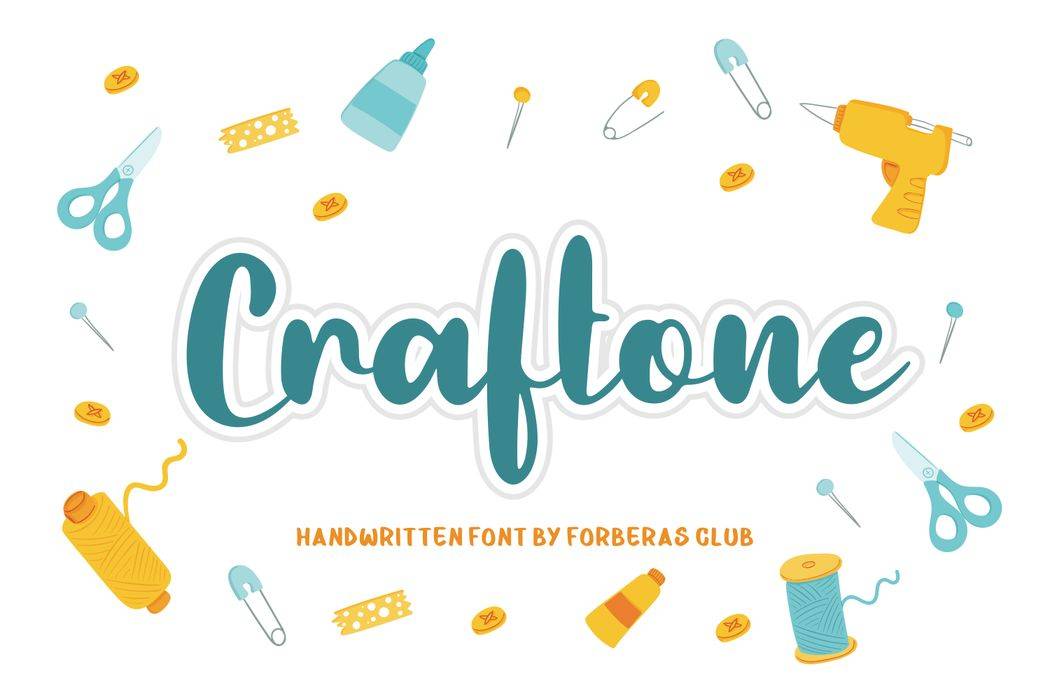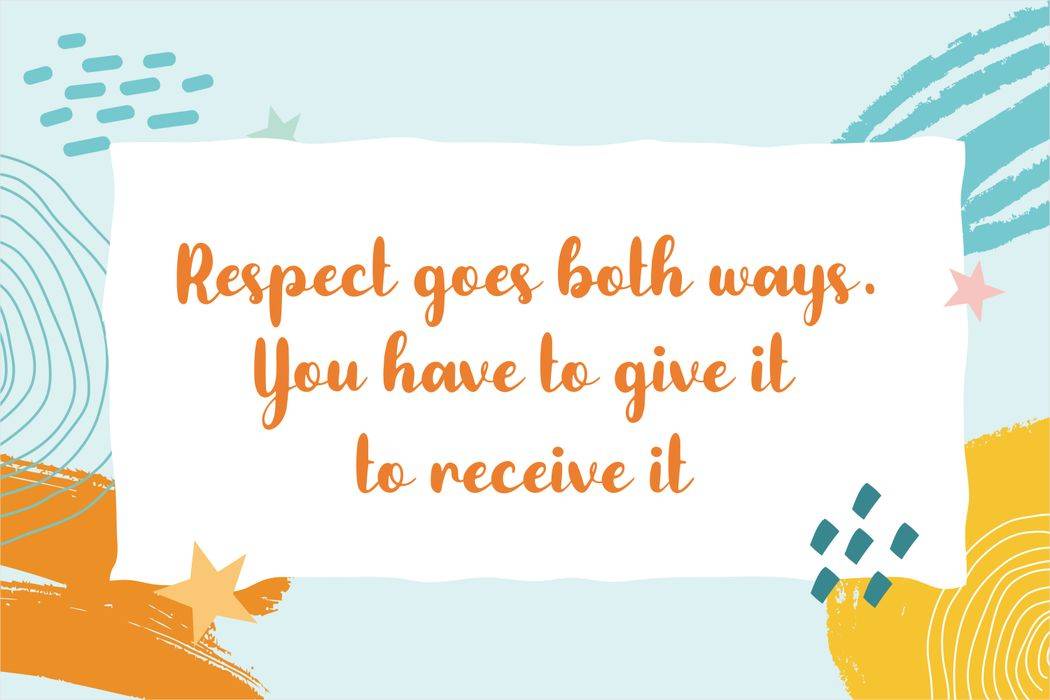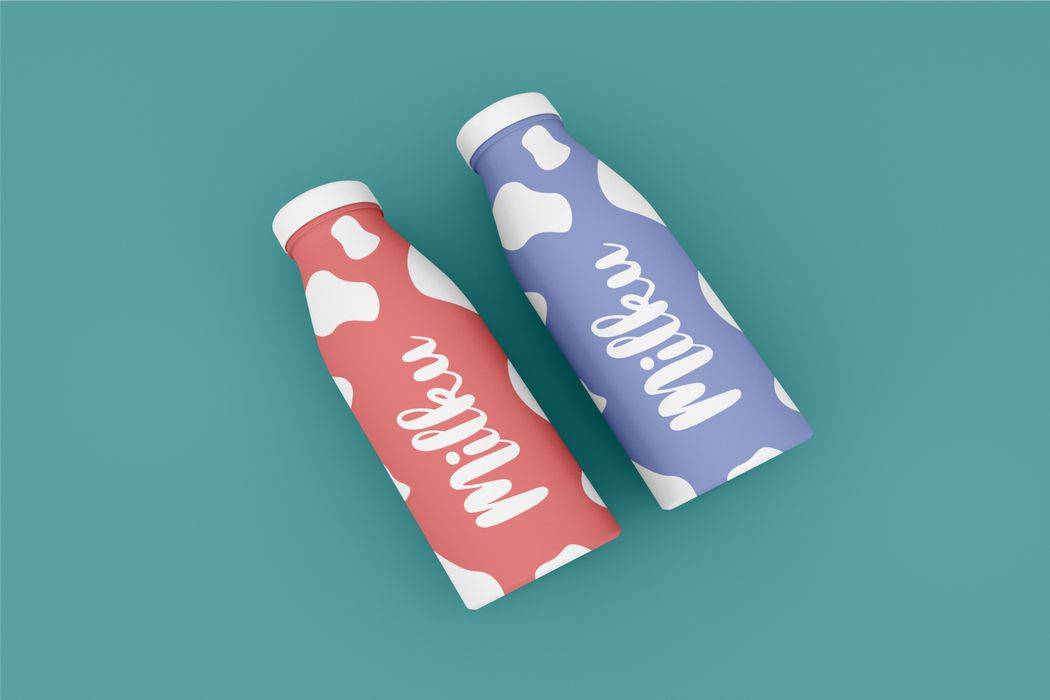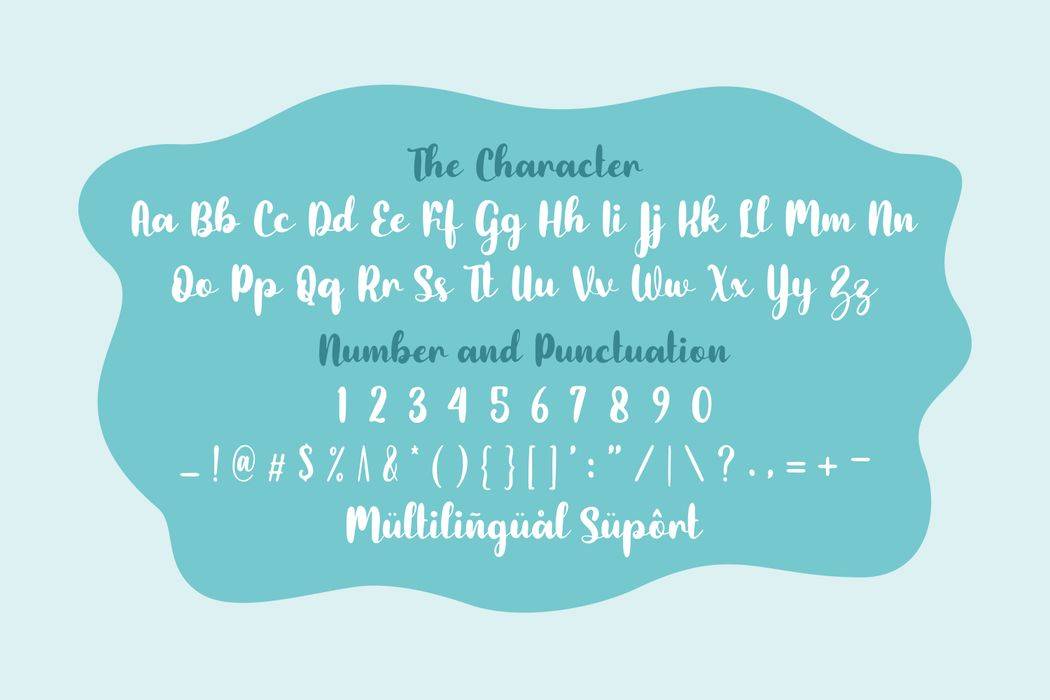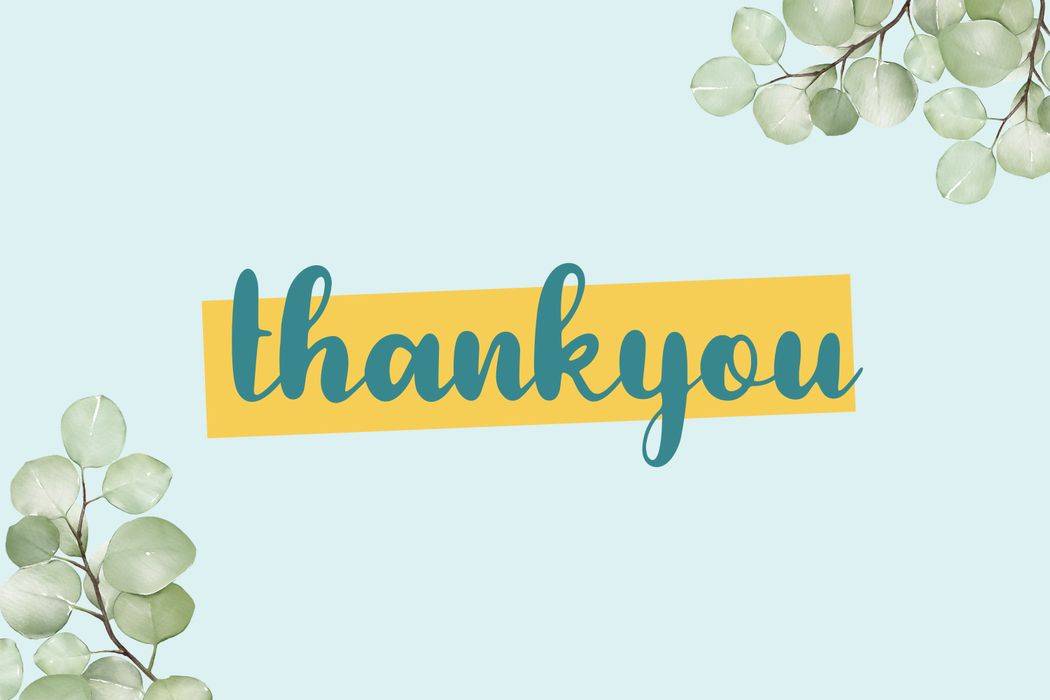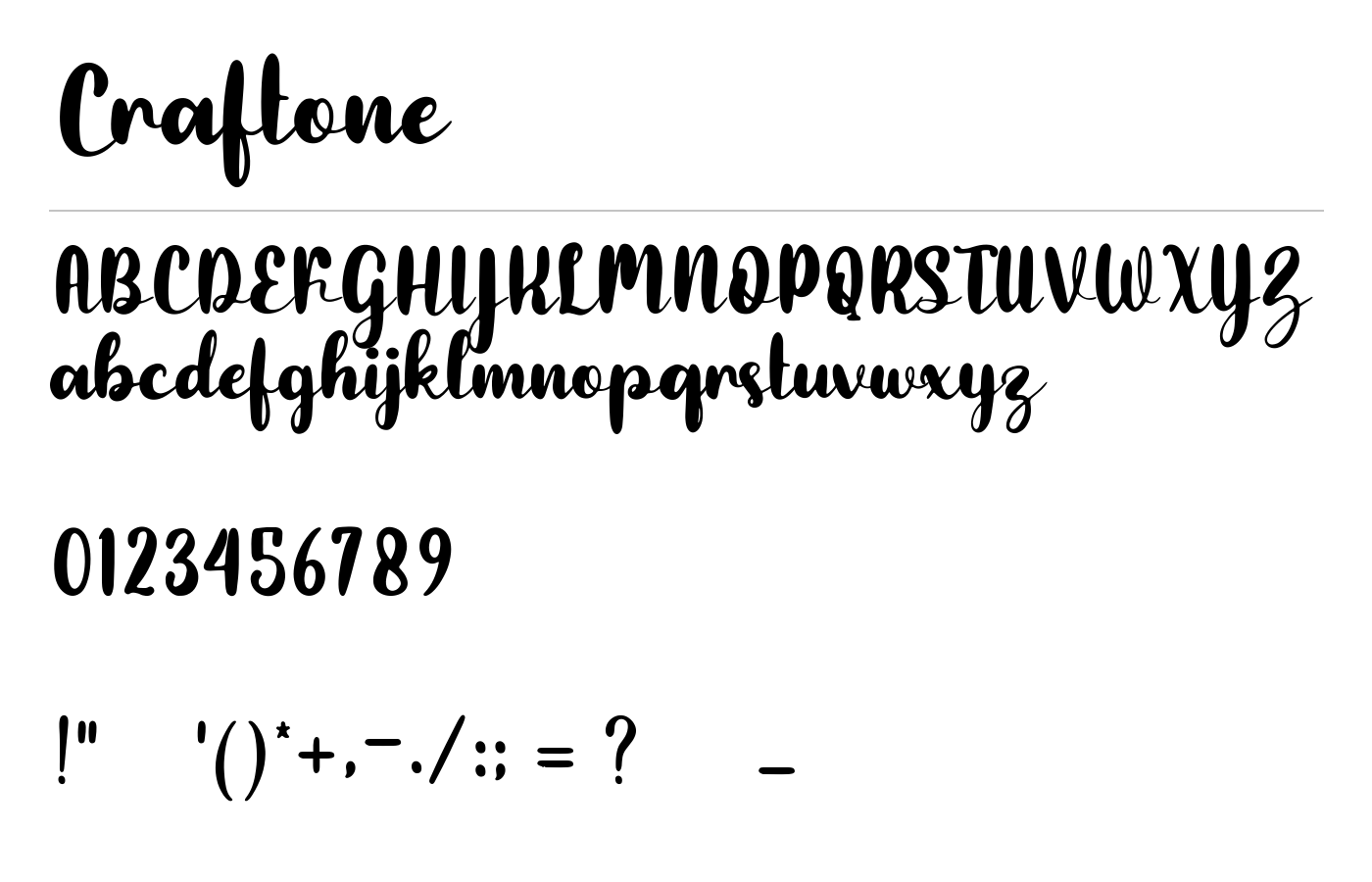
Craftone is a playful and modern script font with smooth, rounded strokes that give it a friendly and approachable feel. Its medium weight and flowing letterforms make it ideal for creative projects, branding, and casual headlines where a warm and personal touch is desired. This font works beautifully in lifestyle and handmade product designs, offering a charming handwritten style that is both stylish and easy to read.
Craftone Font
About Craftone Font
| Font family | Craftone Font |
| Release date | 2021-11-04 |
| Designer | Forberas |